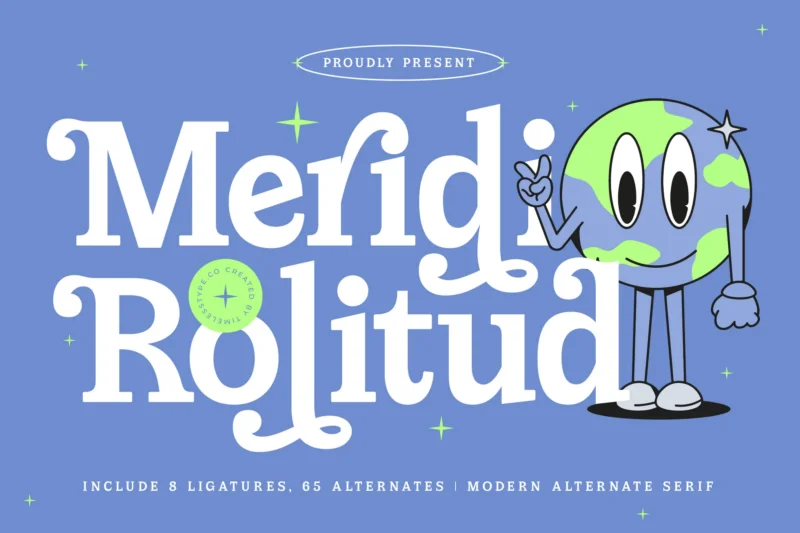
Meridi Rolitud – Modern Alternate Serif
Meridi Rolituid is a fun, modern alternate serif font featuring playful curves, quirky terminals, and a friendly retro-inspired personality. Its bold yet soft letterforms give off a cheerful charm perfect for children’s branding, colorful packaging, creative posters, educational materials, stickers, and character-driven designs. The font blends classic serif structure with fun modern twists, making every layout feel lively, expressive, and full of personality.
With 8 ligatures and 65 alternates, Meridi Rolituid offers huge flexibility for crafting unique titles, creative logotypes, decorative letters, and dynamic display compositions. Its whimsical structure, smooth curves, and imaginative alternates make it an ideal choice for designers looking to bring joy, creativity, and playful energy into their typography.